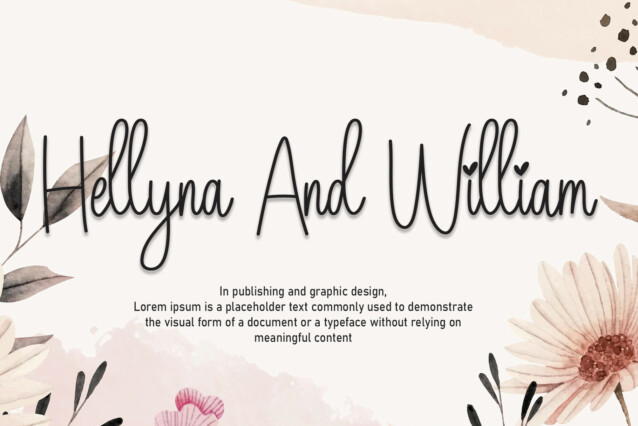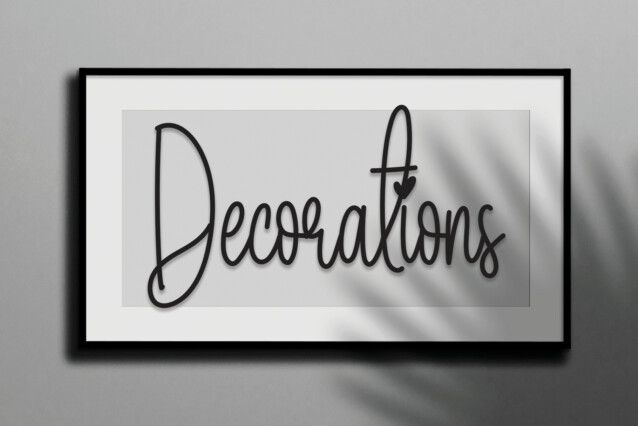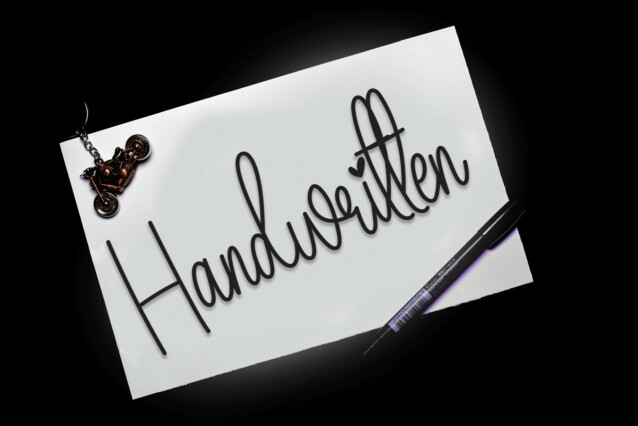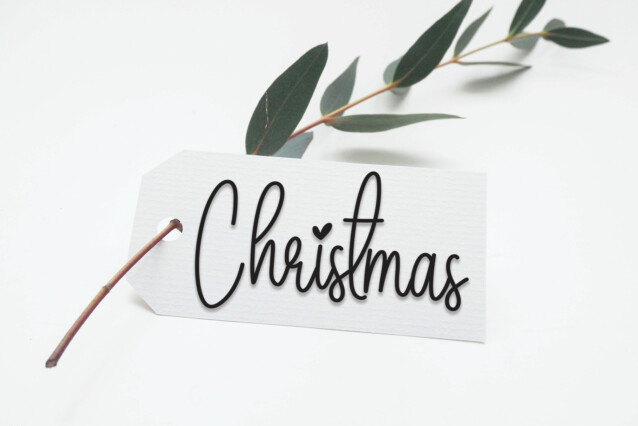
Wedding Package Handwritten Font
Wedding Package Handwritten Font is a lovely and timeless handwritten font. It is the best choice for creating eye-catching logos, branding, and quotes. Every letter has a unique and beautiful touch, which will make your design come alive!